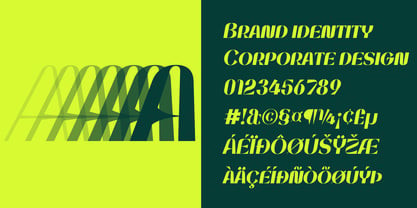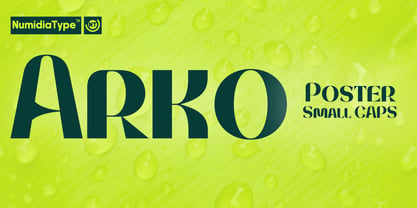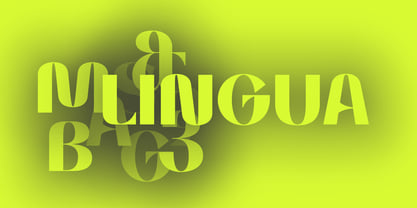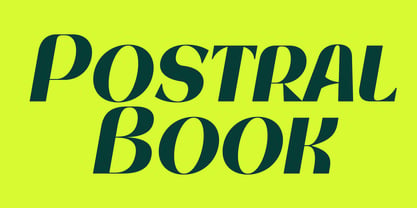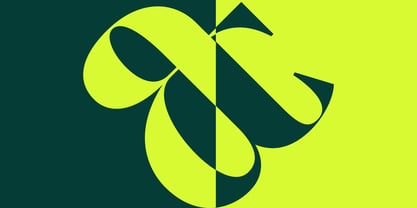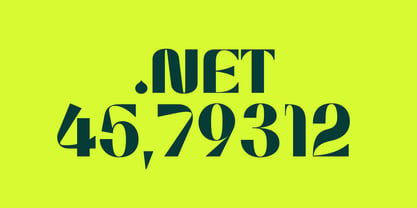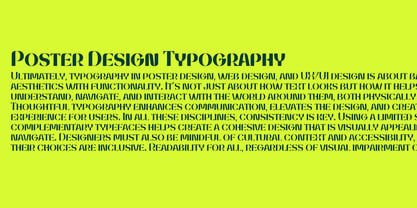
Arko Poster Small CAPS
by NumidiaType
The Arko Poster Small CAPS Font Family was designed by Yassine Abdi and published by NumidiaType. Arko Poster Small CAPS contains 14 styles and family package options. More about this family
Arko™ Poster Small CAPS is a striking, high contrast sans serif font designed for the modern professional. With its bold, aesthetic appeal, this typeface is perfect for projects that require a strong visual presence. Featuring small caps and a carefully crafted balance between form and function, Arko Small CAPS Poster brings a unique flair to logotypes, branding, and packaging designs. Its seven weights and 14 styles provide designers with a range of options to suit any creative vision, from sleek, minimal designs to bold, impactful headlines. The font is equipped with opentype features and alternative glyphs, giving you added flexibility and customization for various design applications. Whether you're designing mockups, packaging, or brand materials, Arko Small CAPS Poster adapts seamlessly to every project, allowing you to explore both regular and italic variations with ease. Ideal for modern styles and sophisticated aesthetics, Arko Small CAPS Poster is a must have tool for any designer looking to elevate their creative work with a professional, contemporary typeface.
Designers: Yassine Abdi
Foundry: NumidiaType